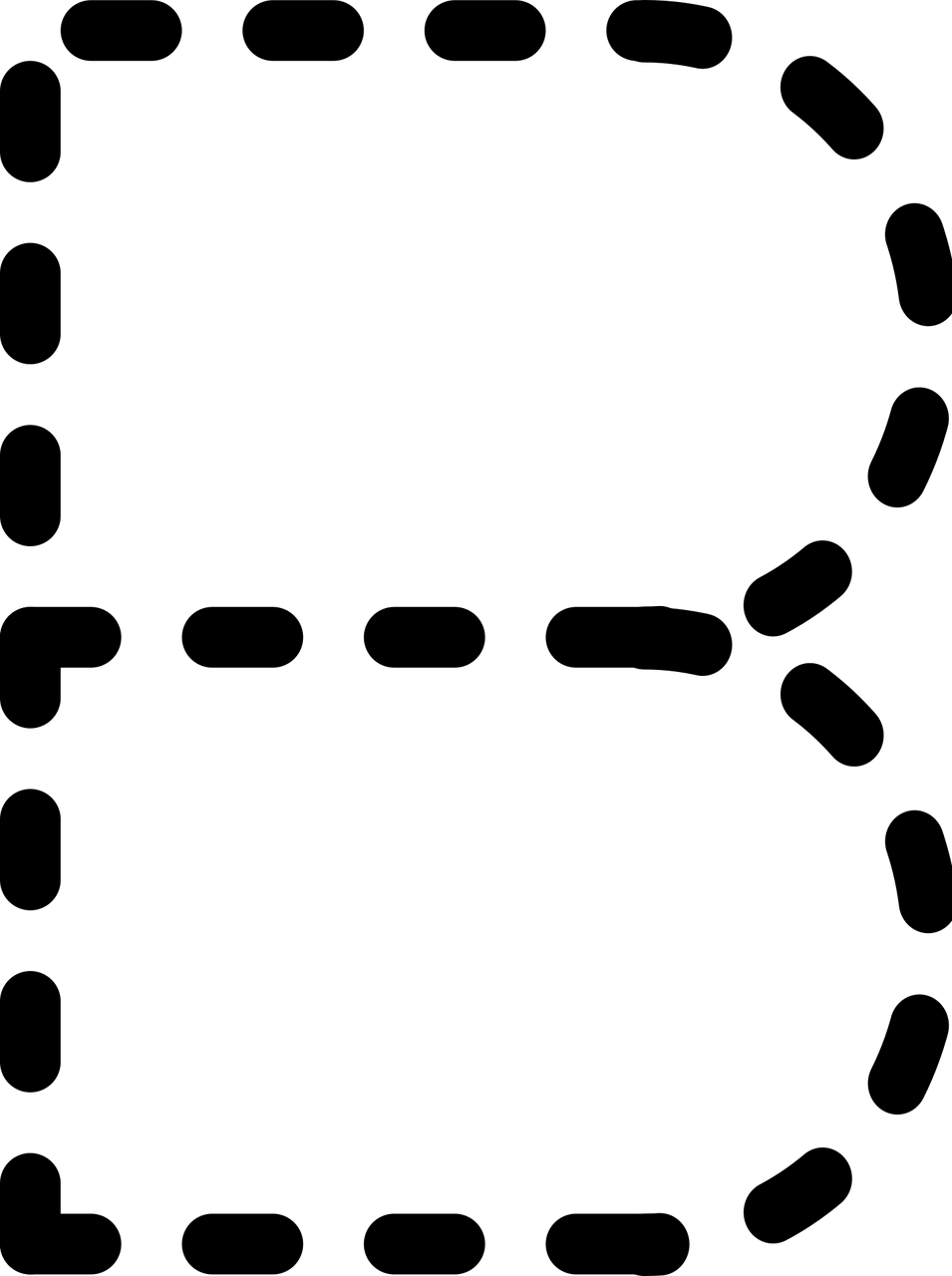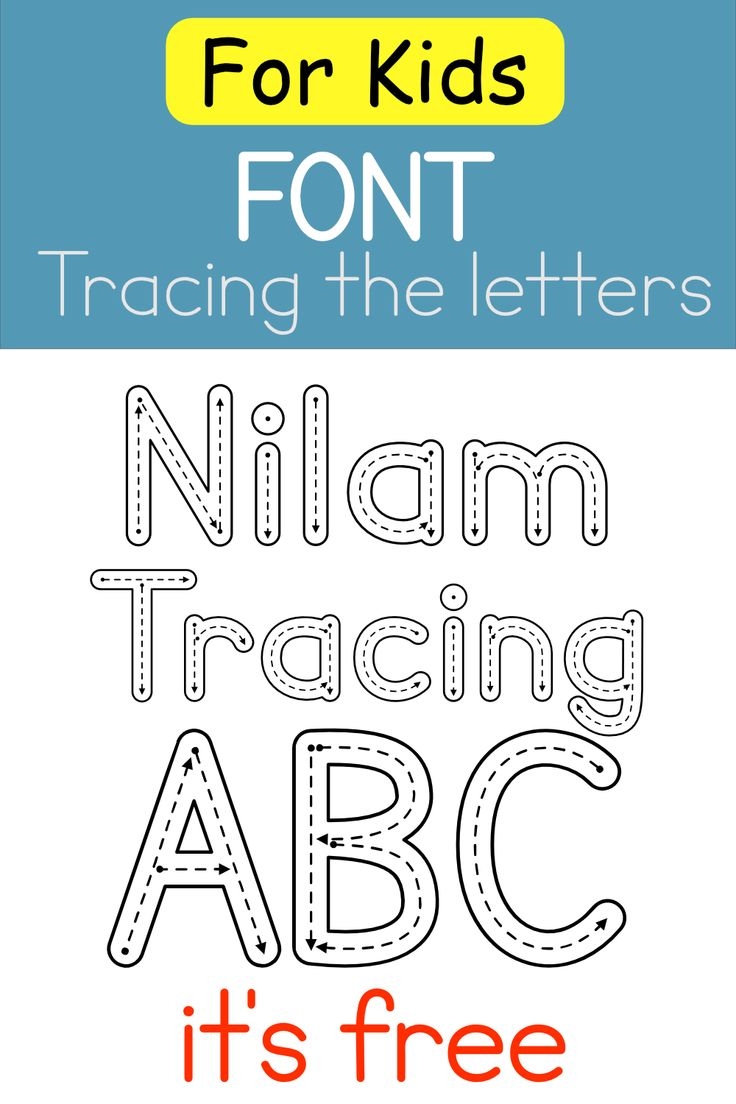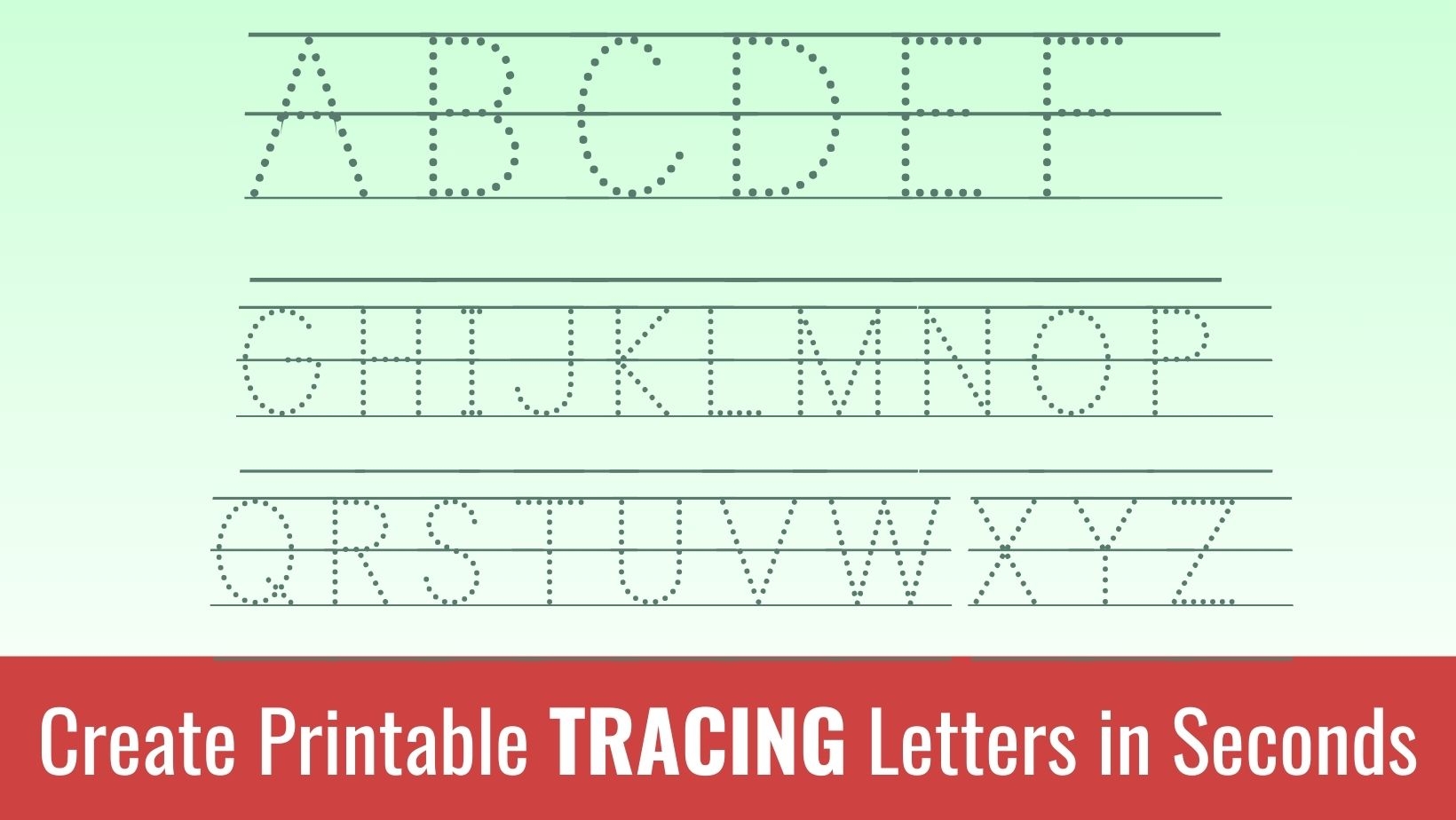
Tracing Letters Font Free
Finding the perfect font can elevate your design projects significantly. Whether you’re working on invitations, posters, or educational materials, the right font sets the tone and enhances readability. One popular choice among designers is tracing letters font free.
Many websites offer tracing letters font free for download. These fonts come in various styles, from playful to elegant, catering to different design needs. You can easily find options that suit your project’s theme.
Using tracing letters fonts can also spark creativity in older students and adults. They can be used for art projects, scrapbooking, or even personalized gifts. The versatility of these fonts makes them a valuable resource for anyone looking to add a unique touch.
When selecting a tracing letters font, consider the readability and style. A clear and simple design will ensure that the letters are easy to trace and recognize. This is especially important for younger audiences who are just starting to learn their ABCs.
Incorporating tracing letters font free into your projects can enhance both aesthetics and functionality. With so many options available, you’re sure to find the perfect fit for your creative endeavors!